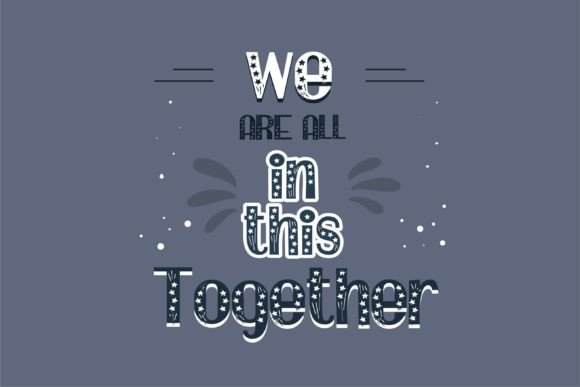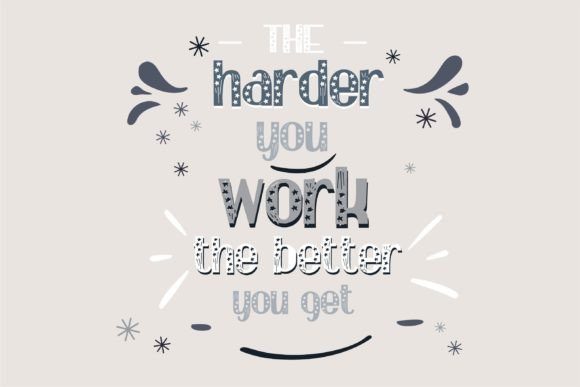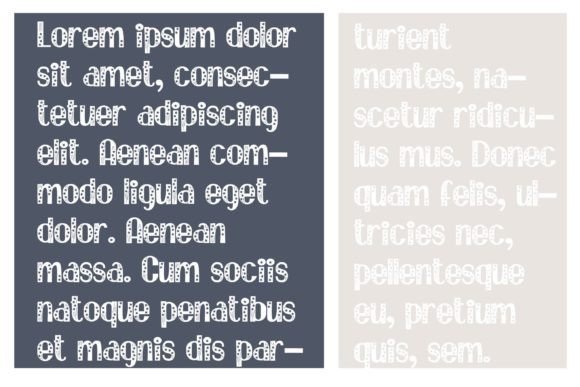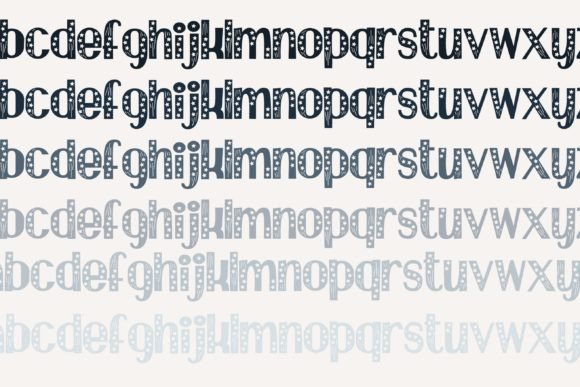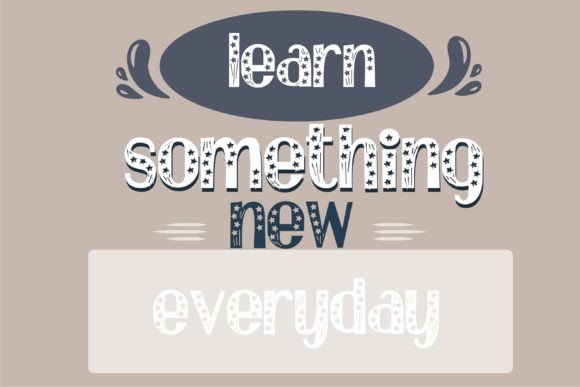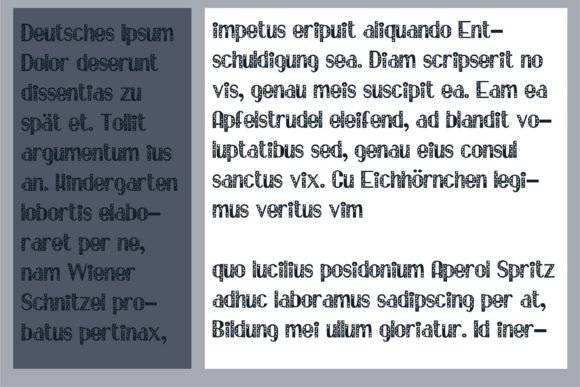
Introduction to American Martian Font
Do you remember the feeling of excitement when you’re working on a creative project and you stumble upon the perfect design resource? For many designers, this moment is what makes all the hard work worth it. It’s that instant where your vision comes to life, and you can’t wait to see the final result. For me, that moment happened when I discovered the American Martian Font.
This fun and patriotic display font is a game-changer for any creative project. Whether you’re designing posters, quotes, titles, or party invitations, the American Martian Font is a great choice. Its transparent background and high-quality design make it perfect for adding a touch of starry joy to your work. With its free download option, you can easily incorporate it into your next project and elevate your design to the next level.
Key Features of American Martian Font
- Unique, hand-drawn design inspired by American culture and Martian landscapes, making it perfect for creative projects.
- Perfect for designers and artists working on creative projects, such as graphic design, digital art, and typography-based designs.
- Unique characteristics include a blend of retro and futuristic elements, creating a distinctive and eye-catching visual style.
Honest Review: American Martian Font
I recently had the chance to explore the free download of the American Martian Font, and I must say, it’s a great addition to any designer’s toolkit. This unique font is perfect for creative projects that require a touch of otherworldliness.
What works well: ✨ The font’s high quality and transparent background make it incredibly versatile. I’ve used it for both digital and print designs, and it’s performed flawlessly. The American Martian Font’s unique style is also a great conversation starter, adding a touch of personality to any project.
- Unique style that adds a touch of personality to any project
- High quality and transparent background
- Perfect for creative projects and design resources
Limitations: ⚠️ While the American Martian Font is a great resource, it’s not ideal for projects that require a more traditional or formal font. Additionally, the font’s uniqueness can sometimes be a double-edged sword – it may not be suitable for projects where a more subtle design approach is needed.
Overall, I’m really impressed with the American Martian Font. It’s a great addition to any designer’s toolkit, and I’d highly recommend it to anyone looking for a unique and high-quality font.